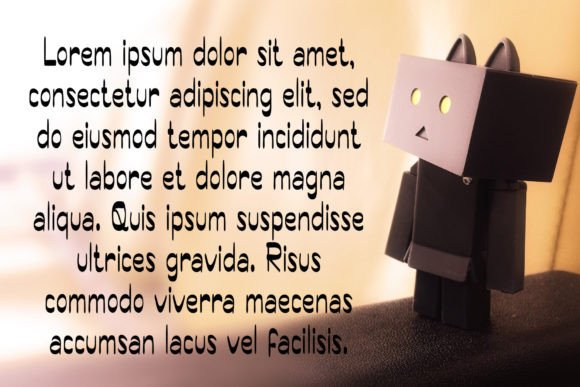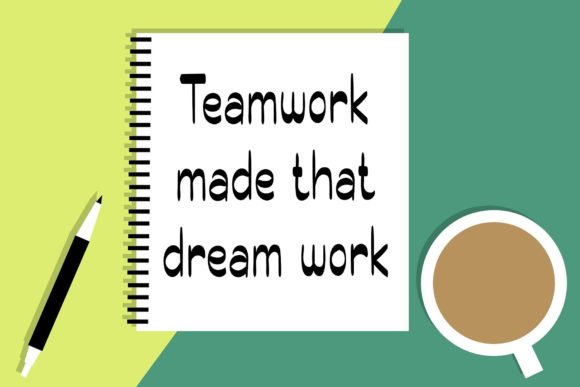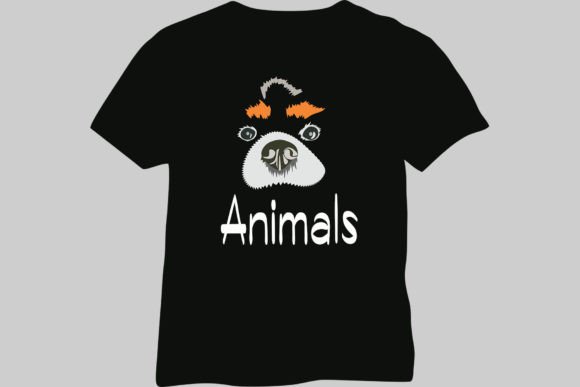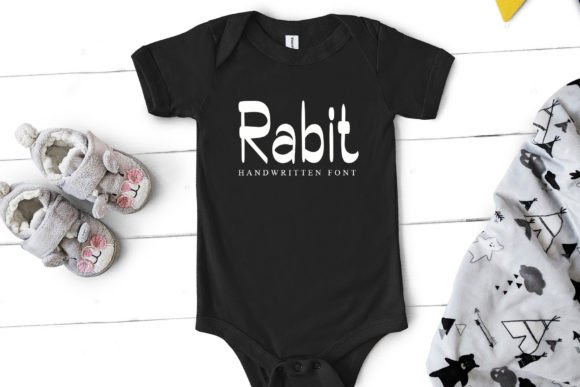
Introducing the Grinch Font: A Unique and Elegant Display Font
Are you tired of using the same old fonts for your designs? Look no further! The Grinch Font is a game-changer for designers and crafters alike. This stunning display font is perfect for adding a touch of elegance and sophistication to any design project. In this article, we’ll dive into the features and benefits of the Grinch Font, and explore how it can elevate your designs to the next level.
A Unique and Elegant Display Font
The Grinch Font is a one-of-a-kind display font that boasts a unique and elegant style. Its varied baseline gives it a natural, hand-made touch that’s sure to make your designs stand out. Whether you’re working on a wedding invitation, greeting card, billboard, logo, or business card, this font is the perfect choice. Its versatility and flexibility make it an excellent addition to any design project.
Wedding invitations and greeting cards are special occasions that require special typography. The Grinch Font is an excellent choice for these types of projects. Its elegant and sophisticated style adds a touch of luxury and refinement to any design. Imagine sending out wedding invitations with a font that exudes romance and sophistication. The Grinch Font is sure to make a lasting impression on your guests.
Great for Billboards and Logos
The Grinch Font is not just limited to small-scale designs. Its bold and eye-catching style makes it perfect for large-scale projects like billboards and logos. Imagine showcasing your brand’s logo on a billboard with a font that’s both unique and elegant. The Grinch Font is sure to grab attention and leave a lasting impression on your audience.
Business Cards and More
The Grinch Font is also an excellent choice for business cards, brochures, and other marketing materials. Its professional and sophisticated style makes it perfect for businesses that want to make a great first impression. Whether you’re a graphic designer, artist, or entrepreneur, this font is sure to elevate your brand’s visual identity.
What Makes the Grinch Font Special?
So, what sets the Grinch Font apart from other fonts? Here are a few features that make it special:
- Varied Baseline: The Grinch Font has a unique varied baseline that gives it a natural, hand-made touch.
- Elegant Style: This font boasts an elegant and sophisticated style that’s perfect for high-end designs.
- Versatility: The Grinch Font is versatile and flexible, making it perfect for a wide range of design projects.
- Unique: This font is one-of-a-kind, ensuring that your designs will stand out from the crowd.
Tips for Using the Grinch Font
Here are a few tips for using the Grinch Font in your designs:
- Use it sparingly: The Grinch Font is a bold and eye-catching font, so use it sparingly to avoid overwhelming your design.
- Pair it with other fonts: Experiment with pairing the Grinch Font with other fonts to create a unique and visually appealing design.
- Adjust the size: Adjust the size of the font to create visual hierarchy and emphasis in your design.
In conclusion, the Grinch Font is a unique and elegant display font that’s perfect for designers and crafters alike. Its varied baseline, elegant style, and versatility make it an excellent choice for a wide range of design projects. Whether you’re working on a wedding invitation, greeting card, billboard, logo, or business card, this font is sure to elevate your designs to the next level. So why settle for ordinary fonts when you can use the Grinch Font to make a lasting impression?